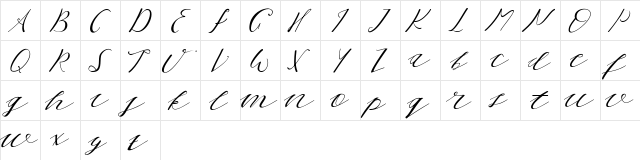
Thelma Regular
| Foundry | Dira Kuntum Chaira |
| Designer | Dira Kuntum Chaira |
Thelma is a composed and adaptable typeface that performs quietly and consistently across a wide range of design contexts.